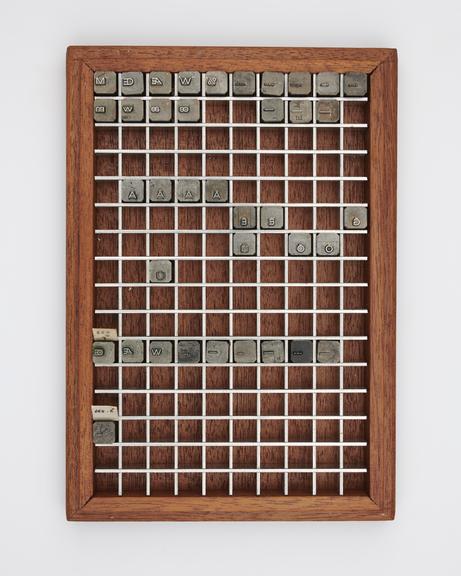
0.4 inch composition punches for Univers Medium Expanded (typeface series number: 688)
0.4 inch composition punches for Univers Medium Expanded (typeface series number: 688), font size 10D. No suffix relating to typeface is marked on the box. In an original wooden box, which also contains one unidentified piece of paper. Manufactured by Monotype Corporation.
A Monotype punch is made by tracing a pattern on a vertical pantograph machine. It is an engraved piece of hardened steel of a reverse-reading type character (letter, numeral or ornament) in relief from which the matrices are made. After cutting, the face of the punch was ground to the correct measurements denoted on the relevant chart. The punch was stamped into a piece of phosphor bronze that made a matrix from which type could be cast. Punches were made in standard sizes: 0.2" x 0.2", 0.4" x 0.4", 1" x 1", or 1" x 1.35". If a Monotype punch became damaged it could be replaced, identically, using the pattern.
The Univers typeface did not originate with The Monotype Corporation. It was designed by Adrian Frutiger in 1957 for traditional typefounders Deberny & Peignot of Paris. It was named because of its aim for universal usefulness. Univers was made in 21 different styles with a decimal system of classification indicating weight and width, such as 40 for light, 50 for medium, 60 for bold and where 3 denoted expanded, 7 condensed, and 9 extra condensed. All of the sizes and weights were designed in relation to one another to produce a harmonious scale of weights. Univers was one of the first typefaces to be planned from the start as a family of consistent related designs. Previously it was quite normal for there to be greater variation between weights and styles. With Univers only the proportions of strokes and letters vary and the basic bowl shapes. For example, the capital ‘O’ is almost straight-sided in the extra condensed compared to the rounded wide ‘O’ of the expanded versions.
Univers was the first typeface to be manufactured simultaneously as foundry type for hand-setting, for hot-metal composition, and for phototypesetting. In 1958 the new typographic adviser at The Monotype Corporation made the decision to embrace the Univers type family and the company manufactured it from the early 1960s onwards. It involved a heavy investment in time and required a lot of physical space.
The letterforms are based upon the nineteenth-century style of sans serifs called Grotesques and are not completely monoline. The apparently unstressed and serifless letter has on closer examination got a slight vertical stress, especially in the heavier weights, and a faint broadening of the tips of vertical strokes. These traces of stress and serif assist the horizontal flow of the line. The close fit of letters, the large x-height and clear legible letterforms produce evenly coloured pages. A vestige of serif is to be found on most vertical straight strokes such as lowercase ‘h’ and ‘q’. Some letters also have a slight turn in the direction of seemingly straight strokes such as lowercase ‘a’ and ‘d’. Where strokes meet at an acute angle and an effect of heavier weight might be produced, the width of stroke is very slightly tapered such as with capital ‘W’ and lowercase ‘w’. The capitals are the same height as lower case ascenders and terminals are sheared off horizontally. The tail of the capital ‘Q’ is horizontal; the lowercase ‘a’ is a traditional double-storey design, and the capital ‘R’ has a curved tail. The Monotype medium and condensed widths have their own accompanying italics but Univers Medium Expanded does not.
Univers was very successful for Monotype as a metal typeface despite being released during the 1960s when another type technology was becoming more prominent. It has appealed to designers because of the many styles and weights to choose from and its neutrality.